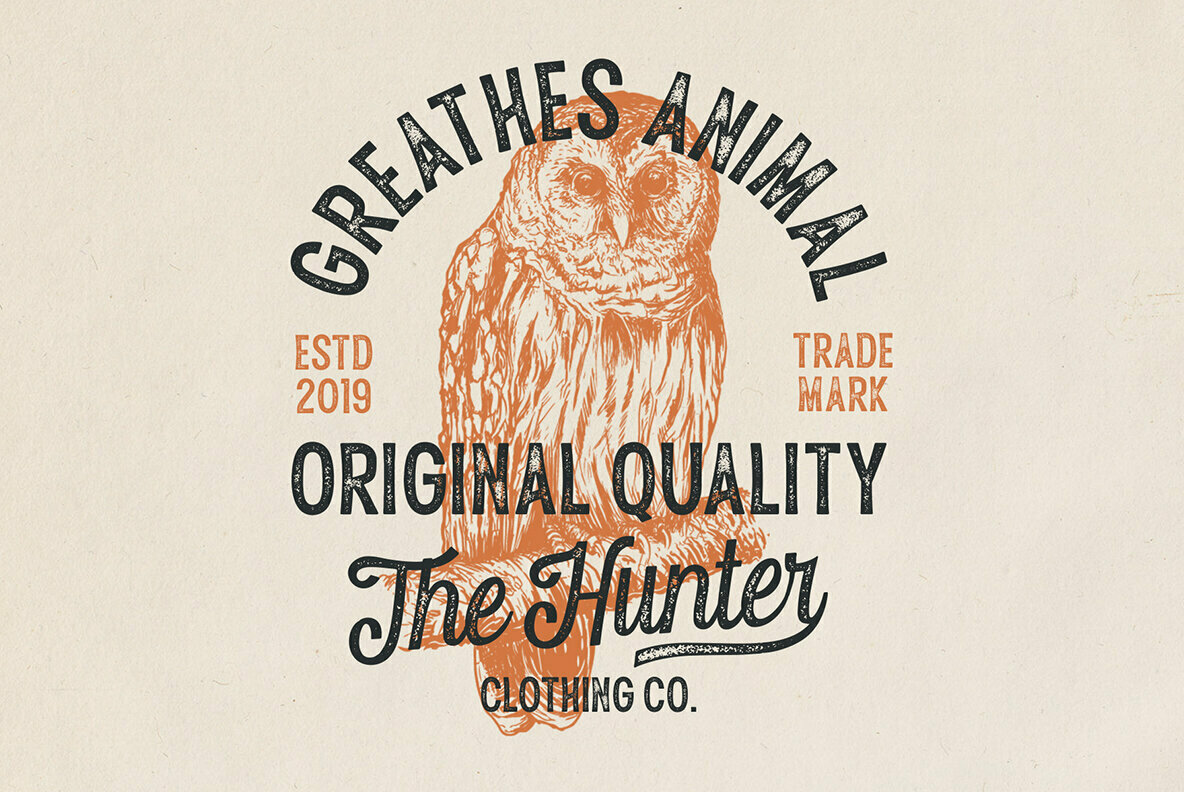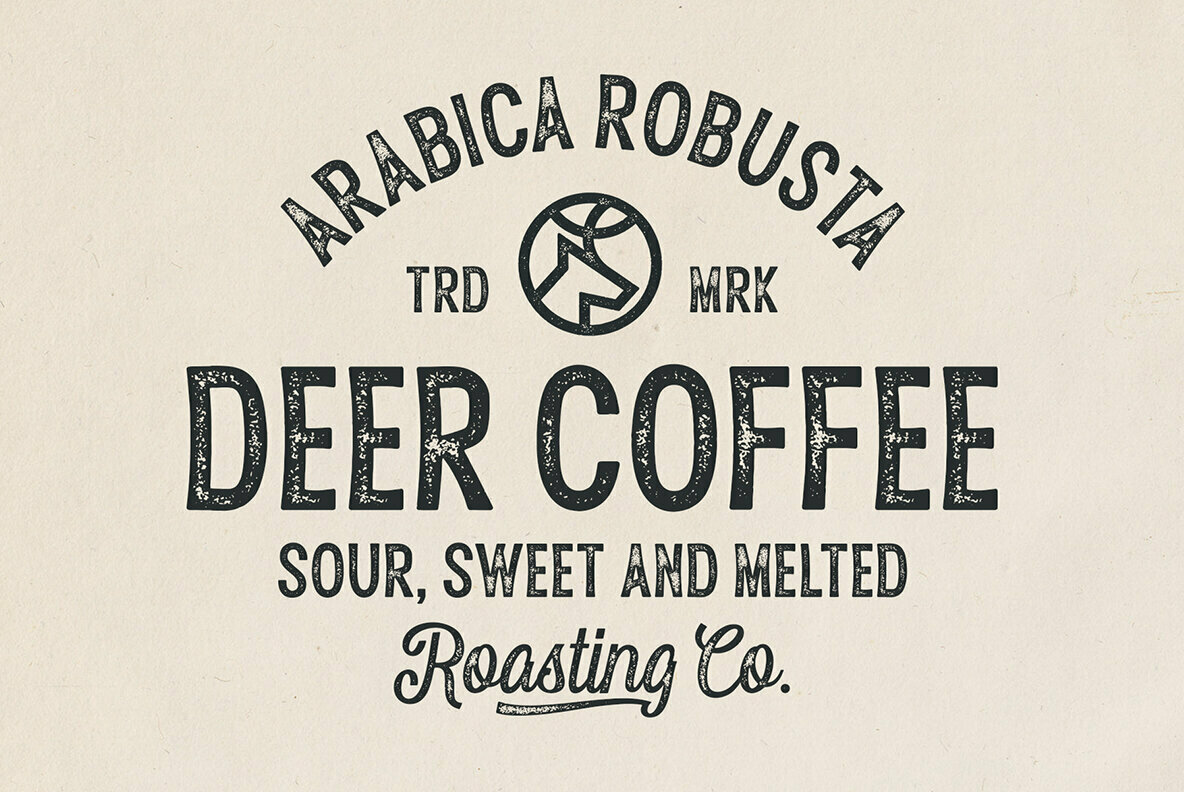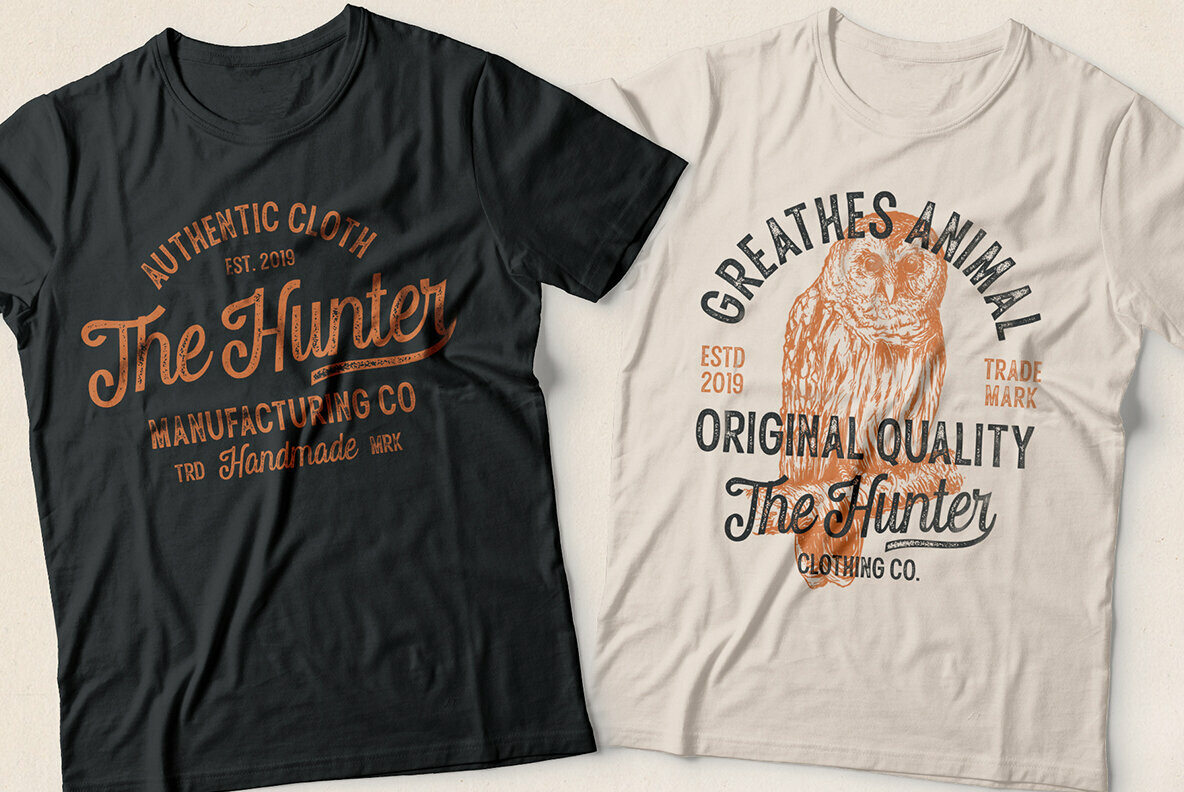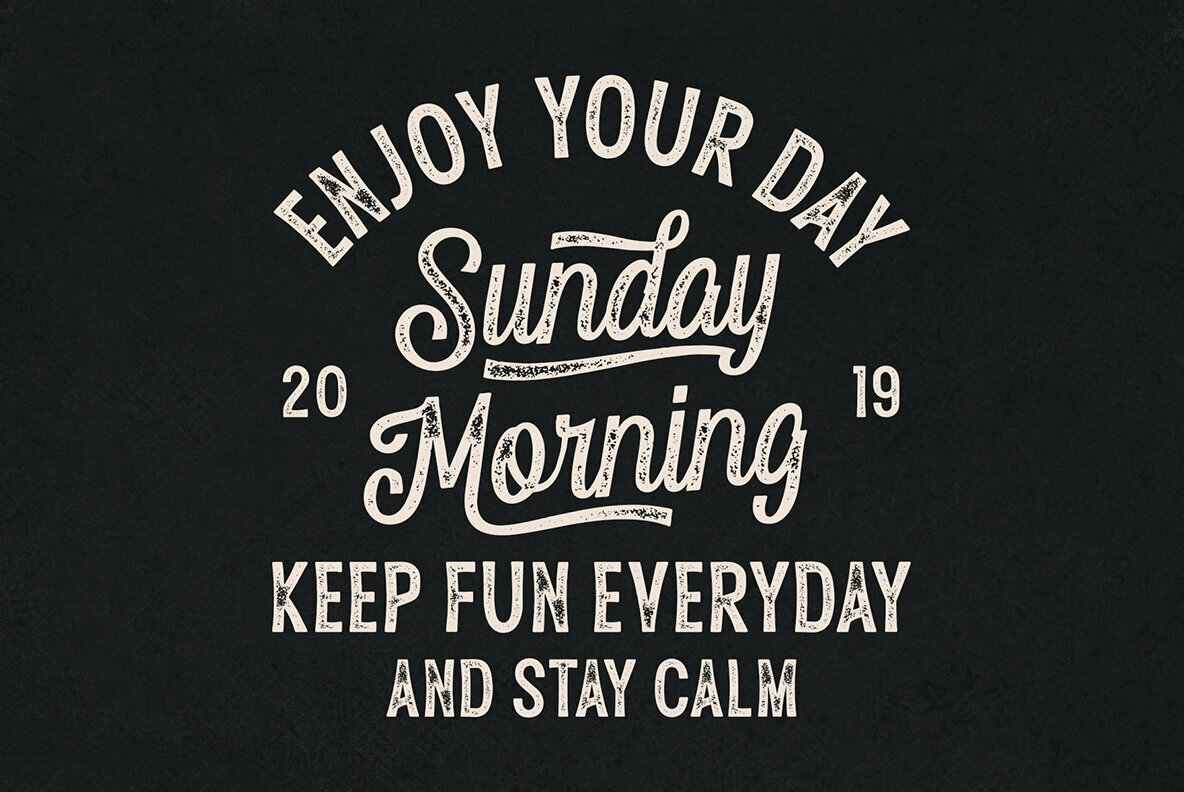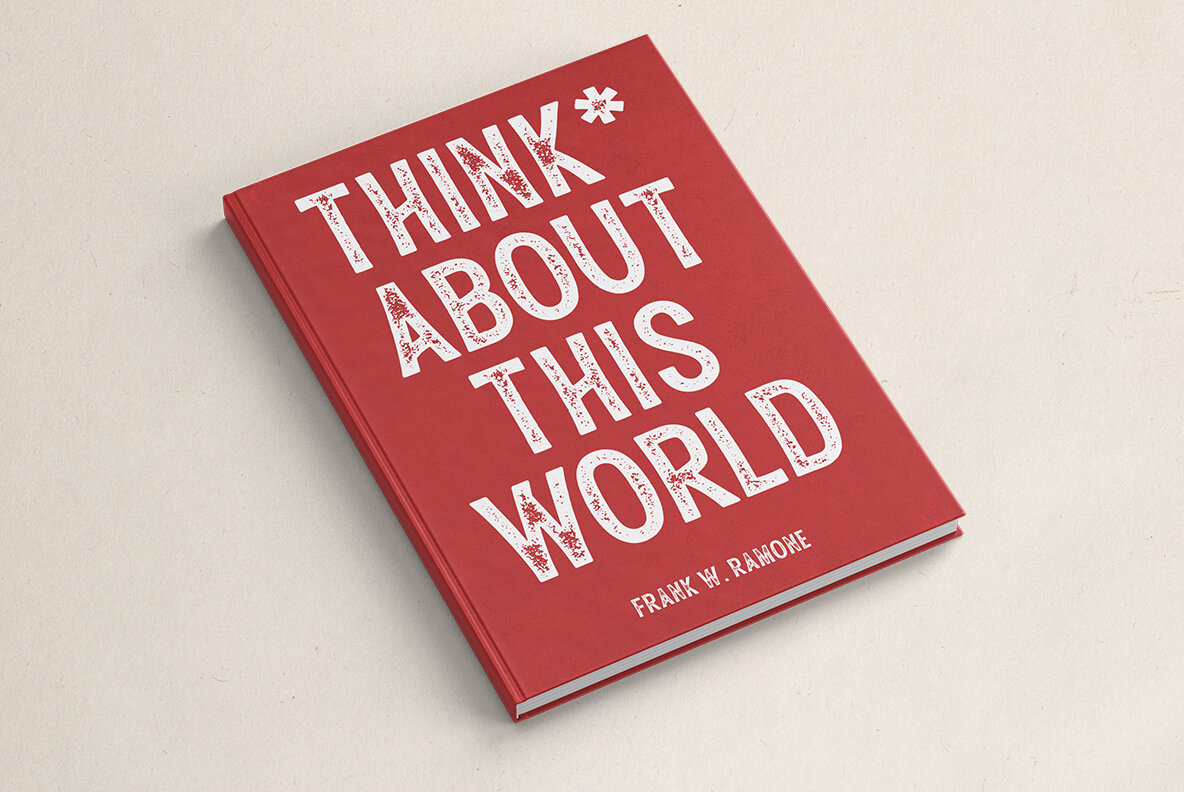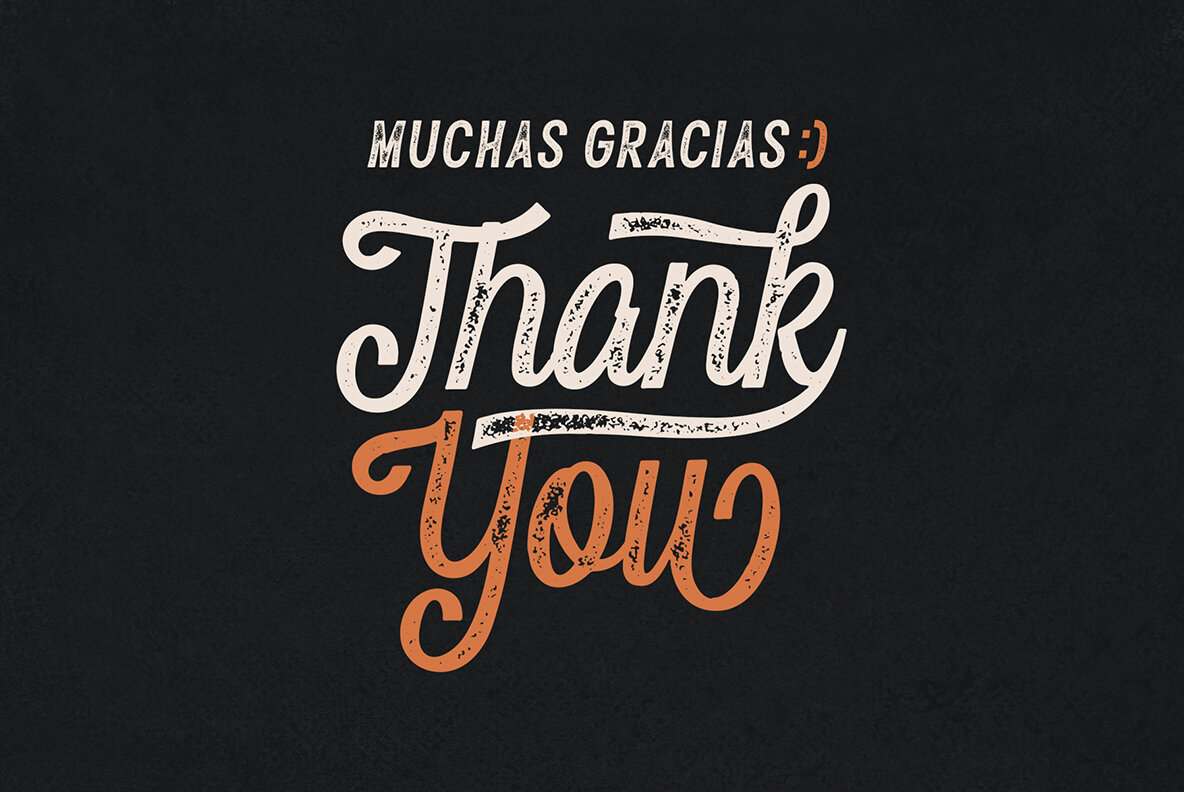
Breakdance Font
Breakdance Regular
Breakdance Italic
Breakdance Script
Breakdance offers a captivating blend of sans and script styles, perfect for those seeking a vintage aesthetic. This font duo brings an authentic feel to your creative projects with its sharp textures and timeless appeal.Breakdance: Vintage Font Duo with Sharp Textures